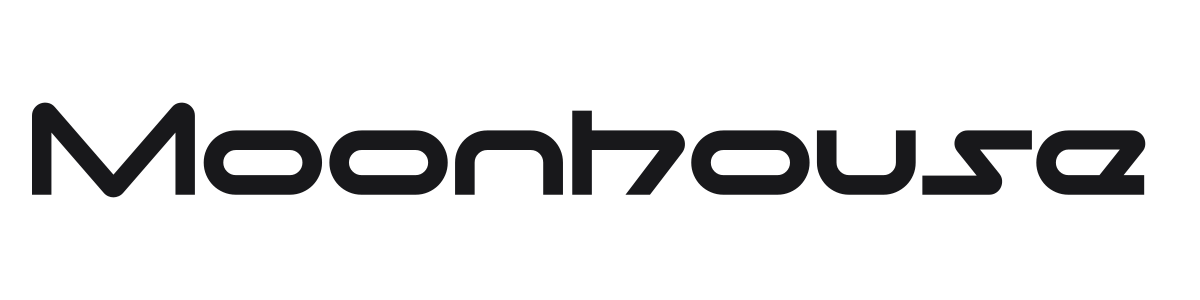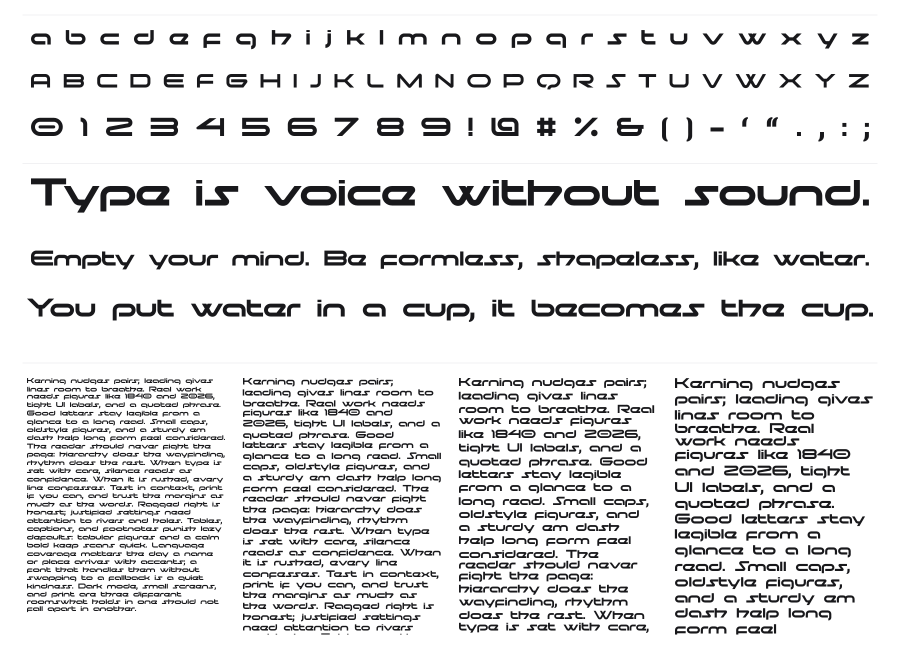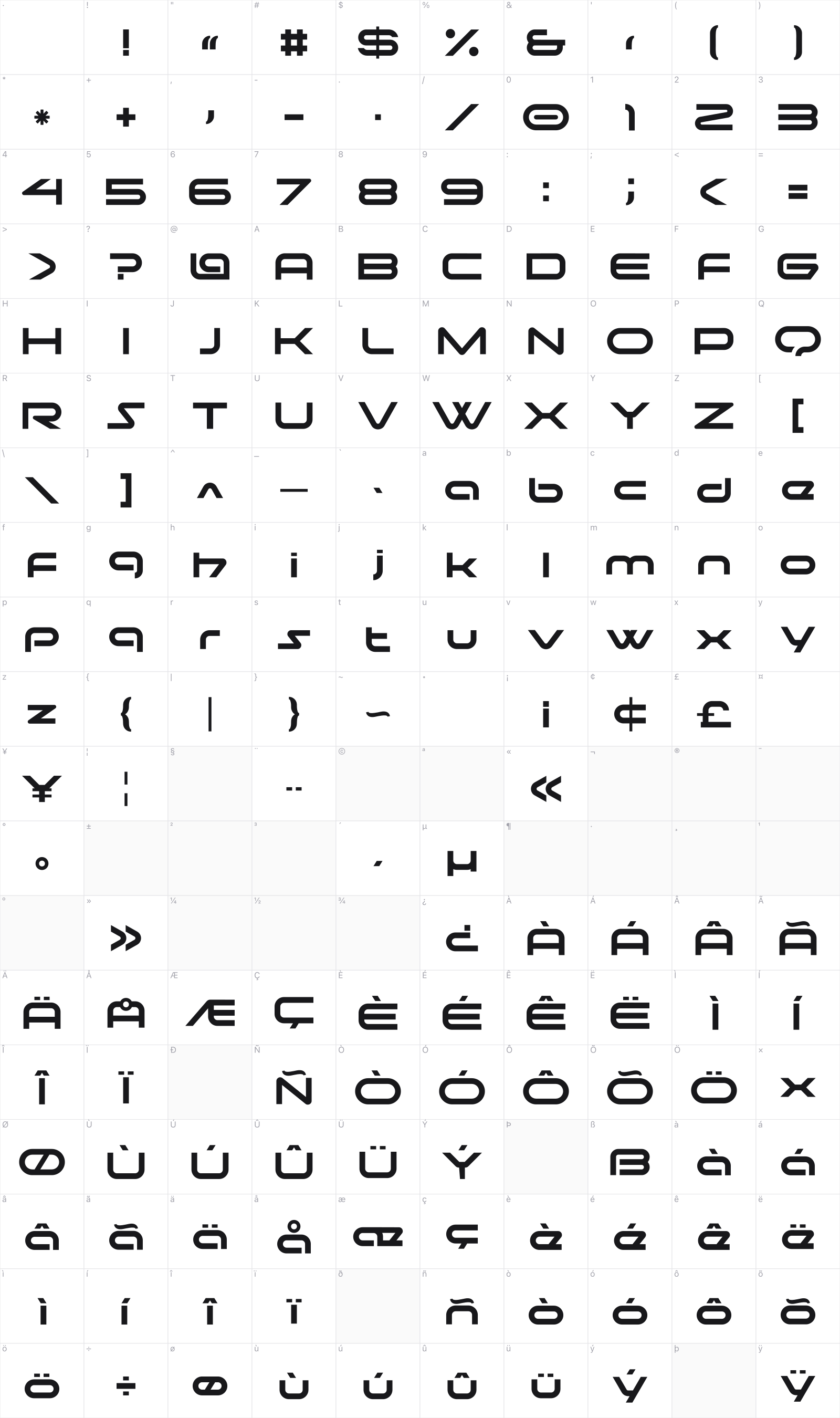
Moonhouse
Moonhouse is a bold geometric sans with rounded terminals and a distinctly futuristic, machine-built character. Its monoweight strokes and unconventional letter constructions give it a sleek, modular feel that reads as confidently technological. Strong at large sizes for titles, logos, and motion graphics.